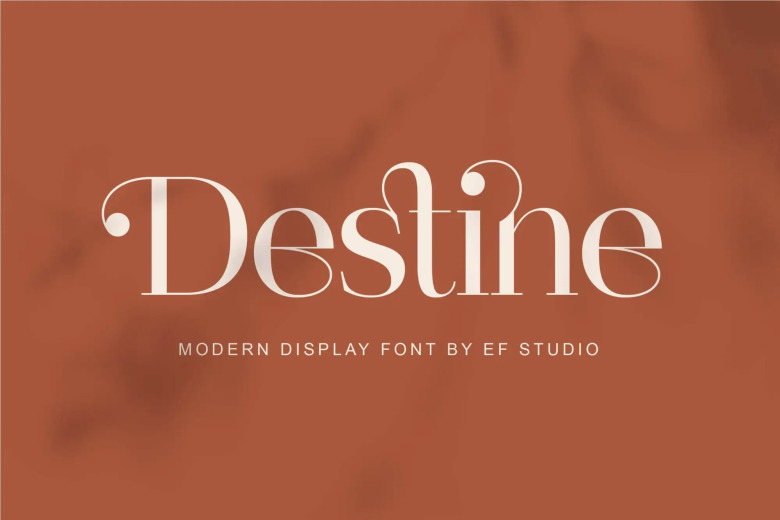
Destine Font
Destine Font is a modern typeface, a display typeface with high contrast and hairline serif. This typeface inspired by Didot and Bodoni. Destine typeface includes opentype features such as stylistic ligatures and stylistic alternate to adds more beautify to any design project. it is suitable for branding, logo, book magazine, headline, wedding invitation, etc.
Destine Modern Serif Font